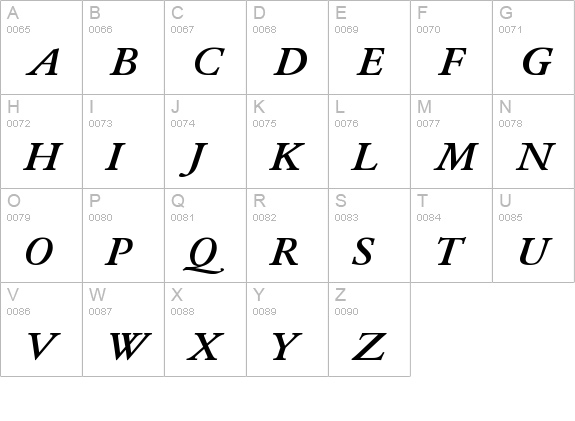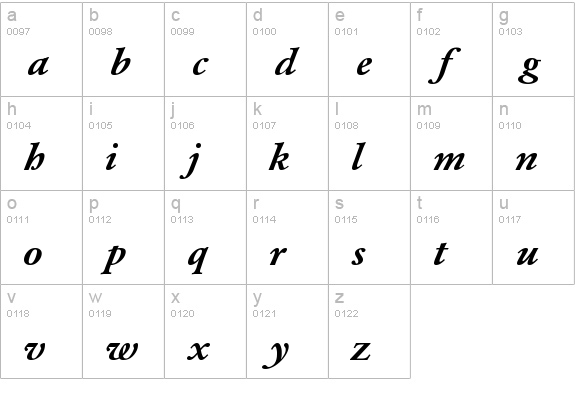
WhittiedMedium 4 is a stunning font that combines elegance and versatility. With its sleek lines and clean curves, this font is perfect for a wide range of design projects. Whether you're creating a logo, designing a website, or crafting a sophisticated invitation, WhittiedMedium 4 will add a touch of sophistication and professionalism to your work. What sets WhittiedMedium 4 apart is its incredible readability. The carefully crafted letterforms ensure that every word is crisp and clear, making it a pleasure to read. This font is also incredibly versatile, as it can be used in both large headlines and small body text without sacrificing legibility. One of the best things about WhittiedMedium 4 is that it is freely available to download at FontsMarket.com. This means that you can use this beautiful font in your projects without any cost. Whether you're a professional designer or a hobbyist, having access to high-quality fonts for free is a game-changer. So why wait? Download WhittiedMedium 4 now and elevate your designs to new heights. With its timeless style and effortless elegance, this font is sure to make a lasting impression. Don't miss out on the opportunity to enhance your work with this amazing font. Head over to FontsMarket.com and get WhittiedMedium 4 today!